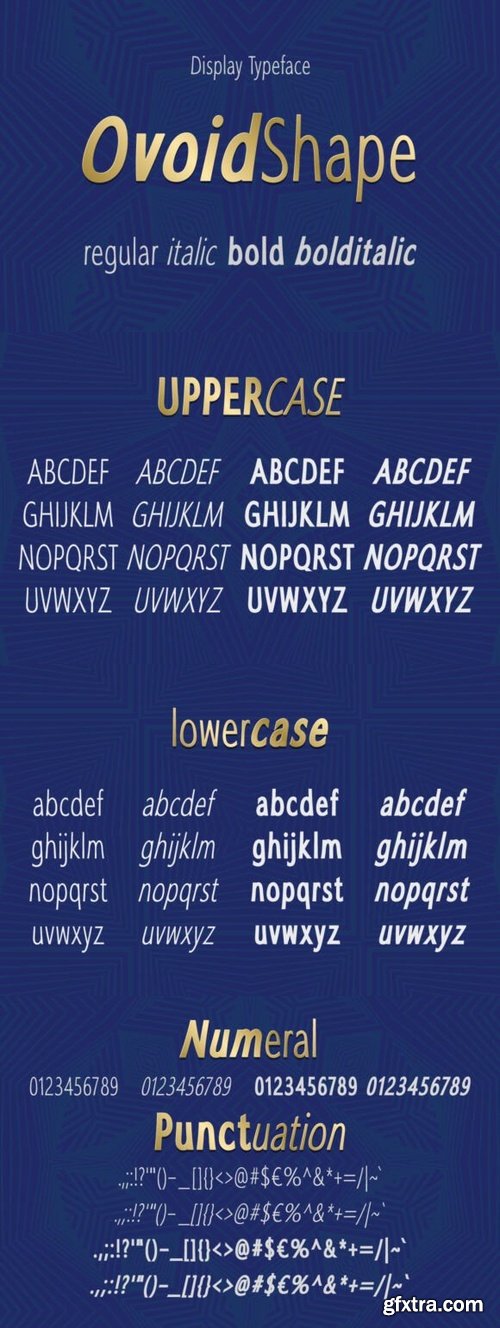
Ovoid Shape Font
- OvoidShape is a modern and versatile display typeface with soft, rounded curves and a sleek contemporary feel. Available in Regular, Italic, Bold, and Bold Italic styles, this font is ideal for branding, editorial headlines, packaging, and professional presentations. Its smooth ovoid structure balances geometric precision with humanist warmth, making it highly readable while visually distinctive.